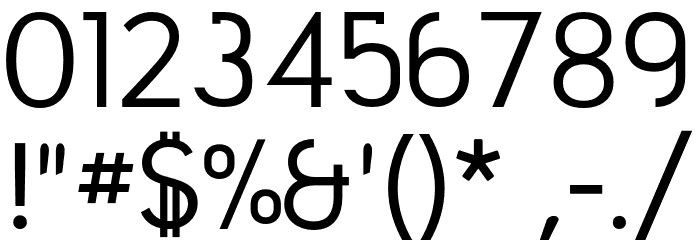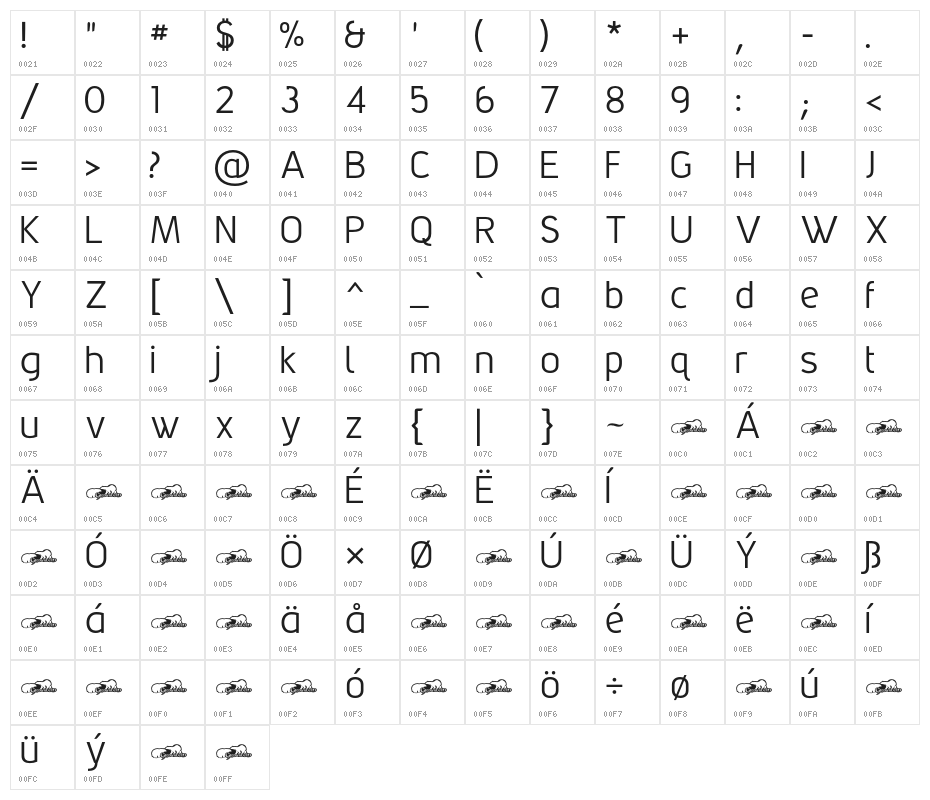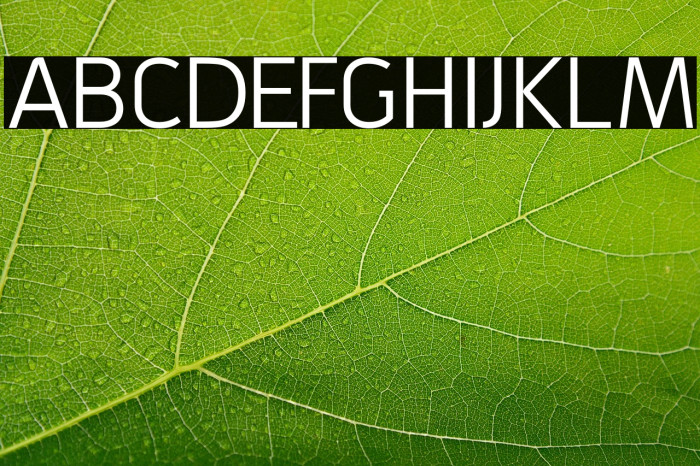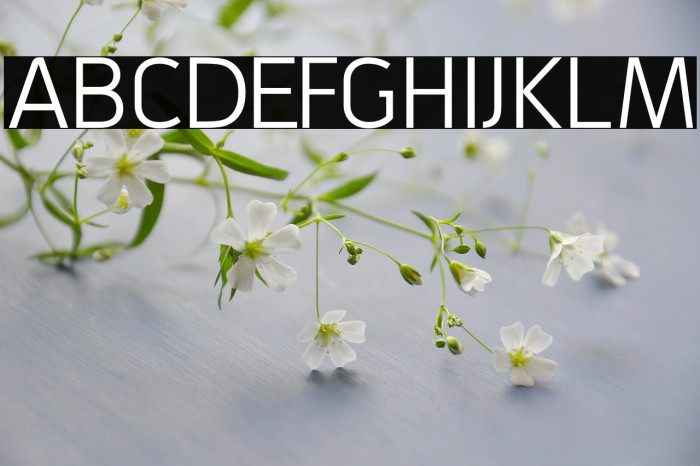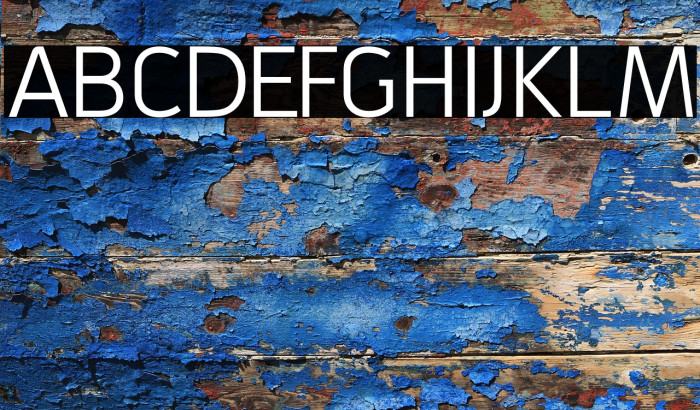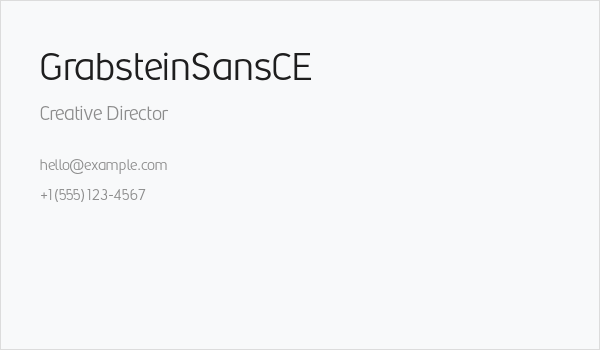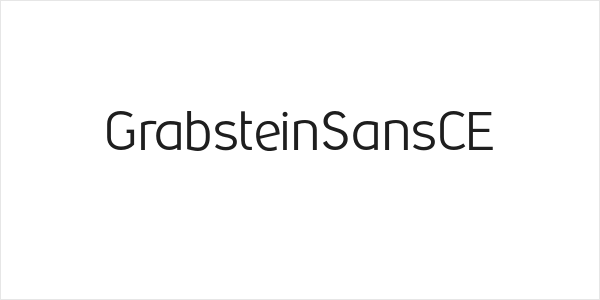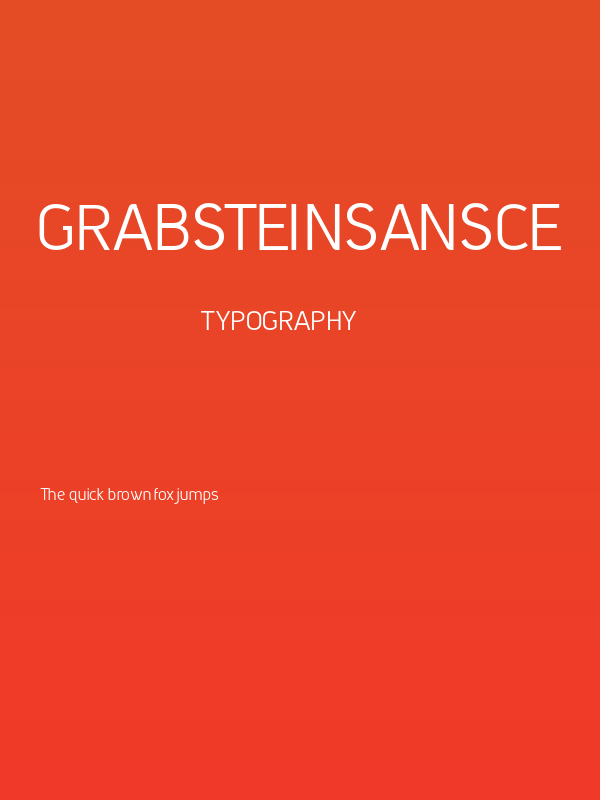
GrabsteinSansCE Font
GrabsteinSansCE Description
This font features a clean and modern sans-serif design with a geometric structure. The characters are well-balanced, offering a uniform appearance across both uppercase and lowercase letters. The numerals are clear and distinct, making them easily readable. Special characters are included, maintaining the same sleek style. The overall design is minimalistic, with a focus on clarity and functionality, making it suitable for a wide range of applications. The strokes are consistent in width, providing a harmonious look.